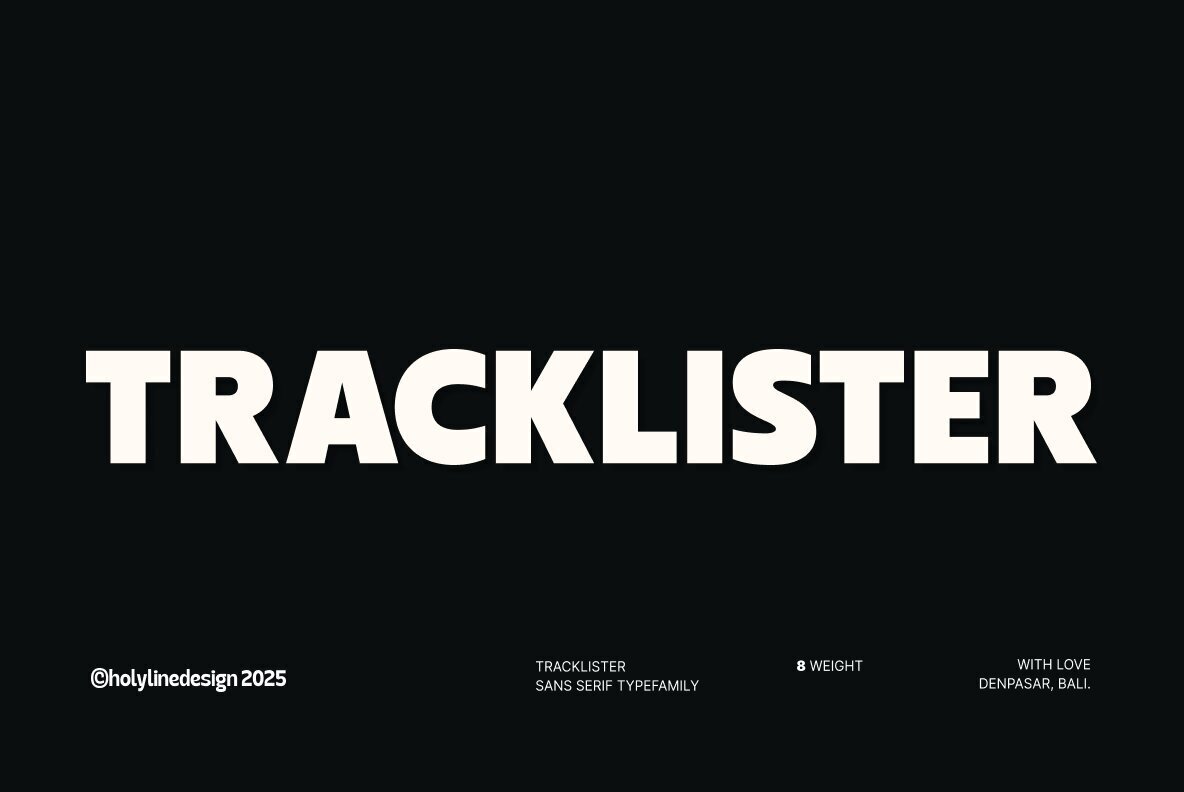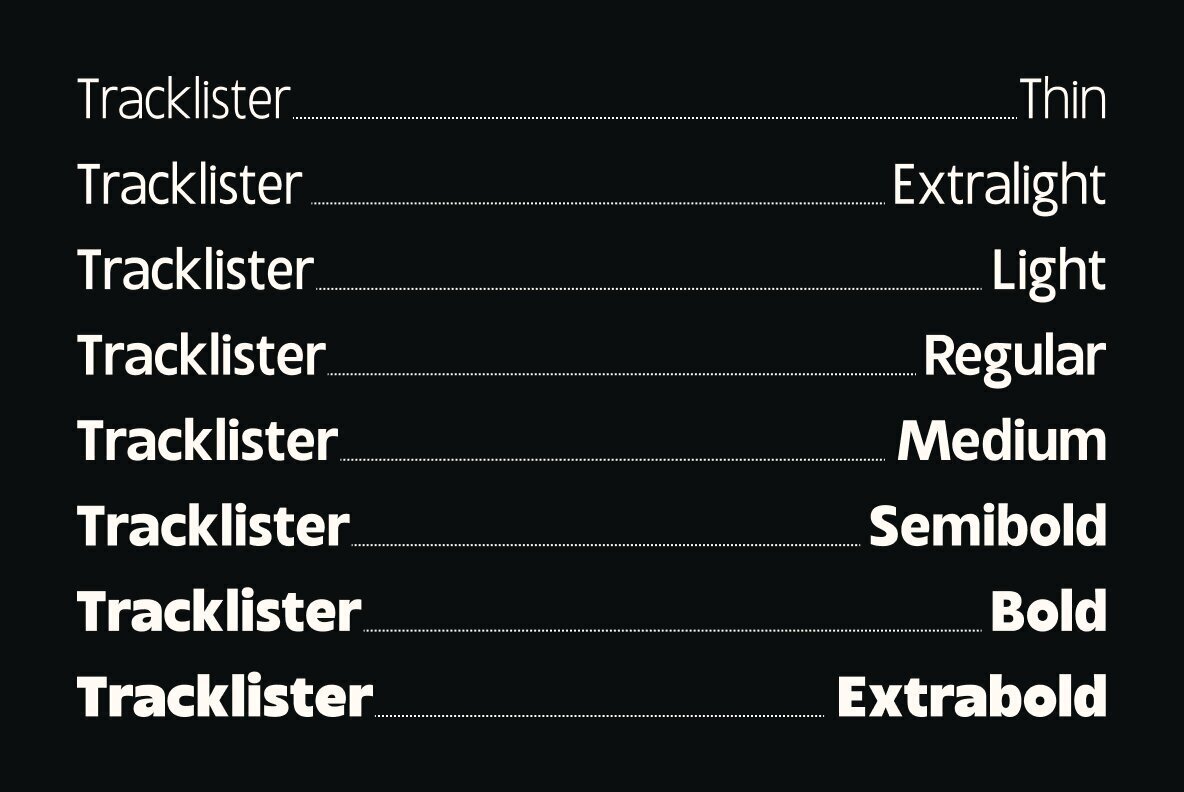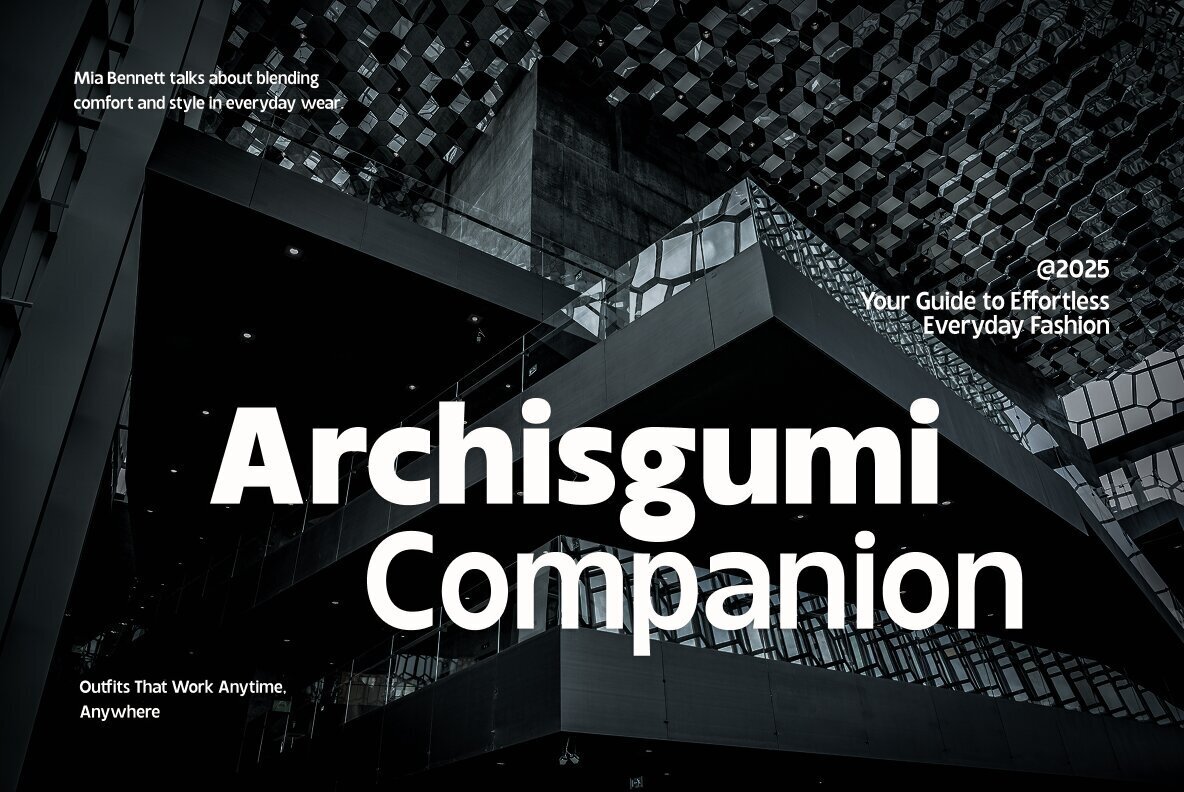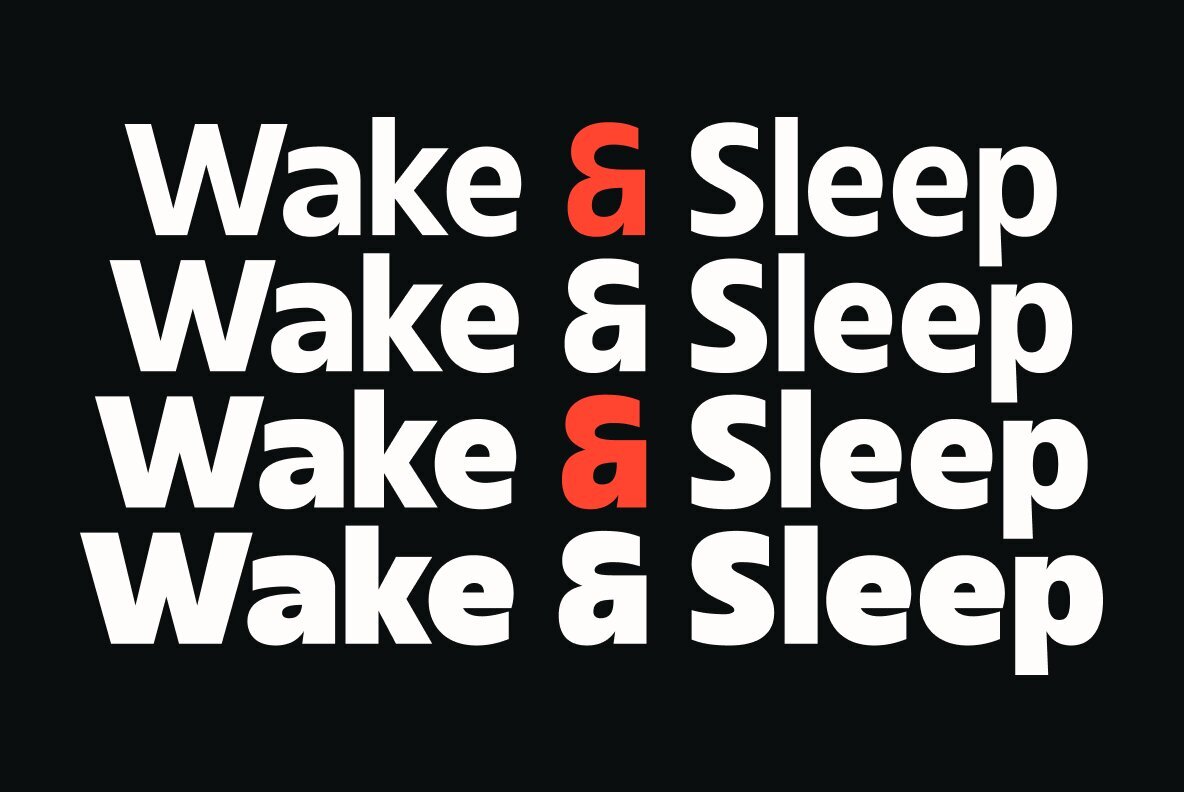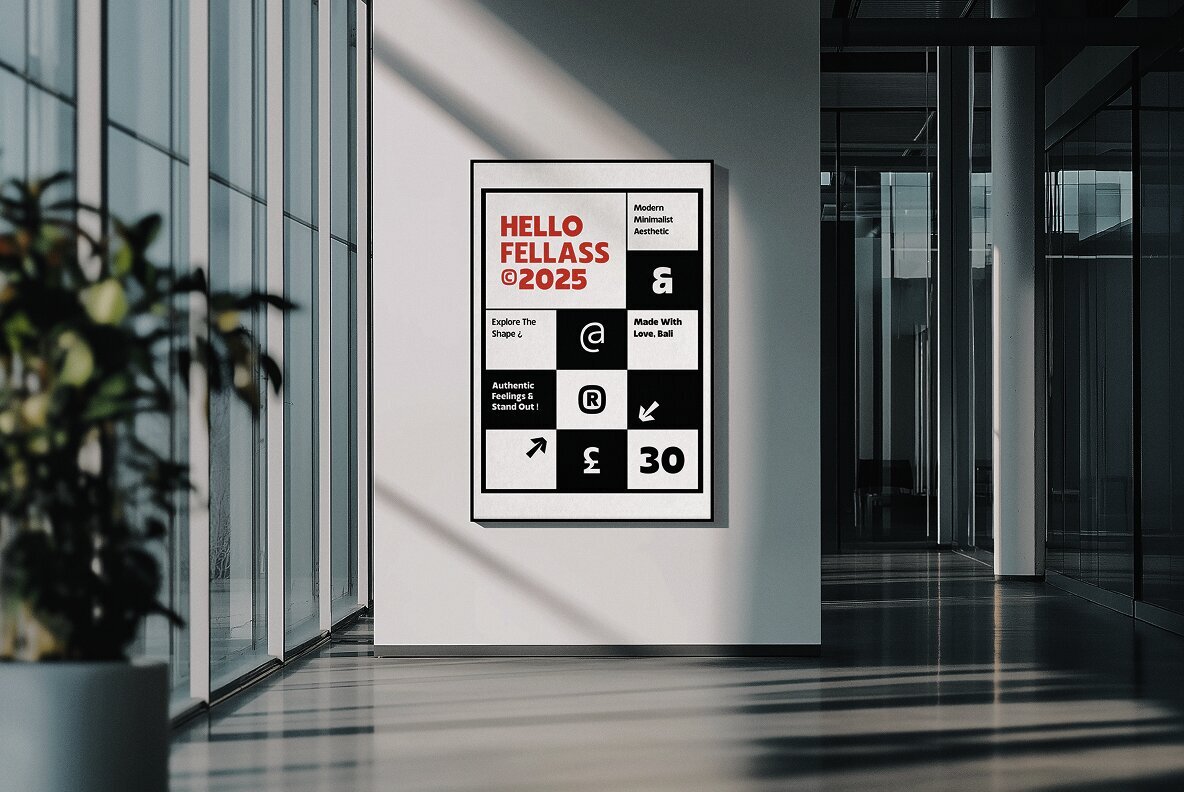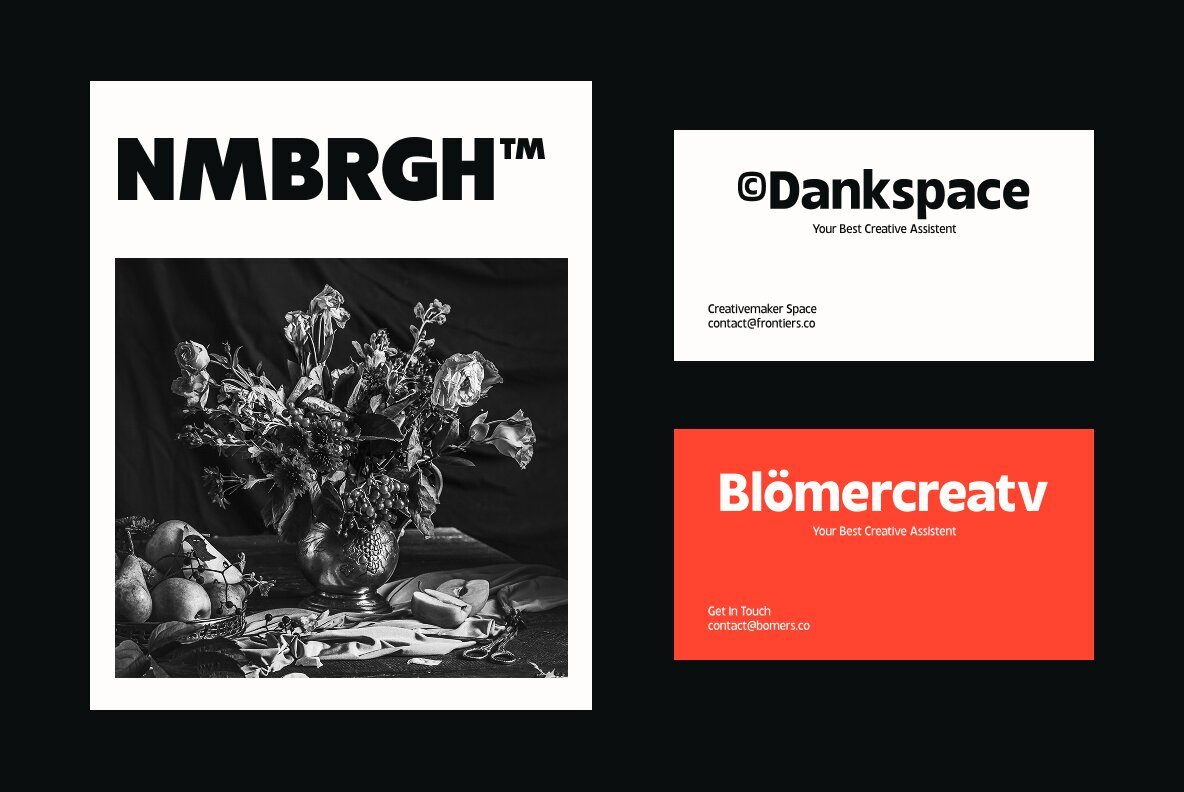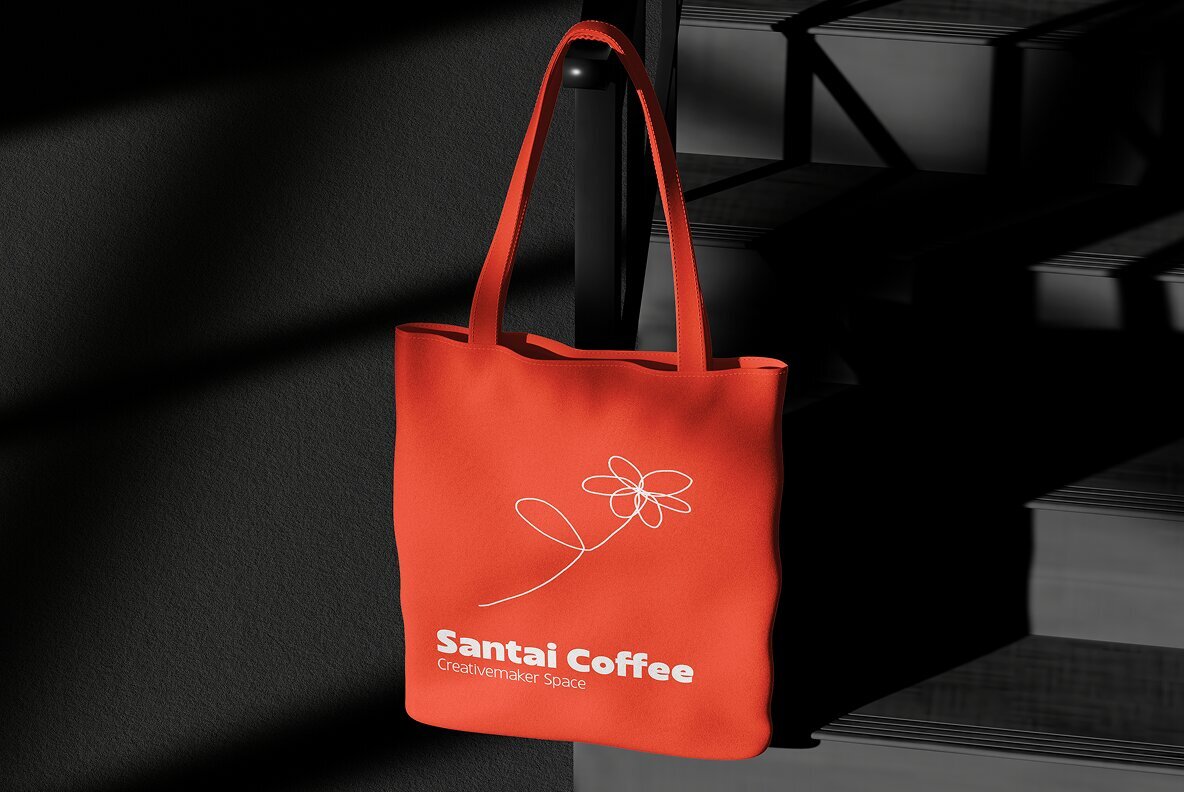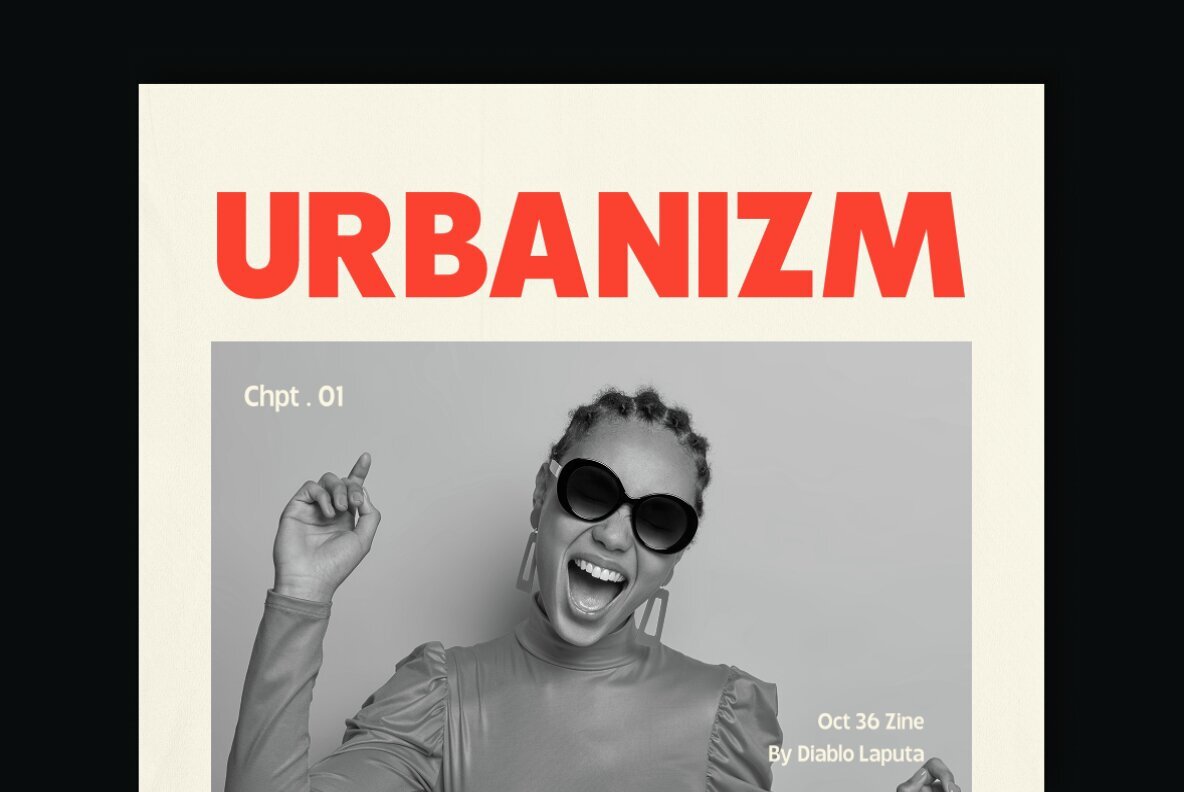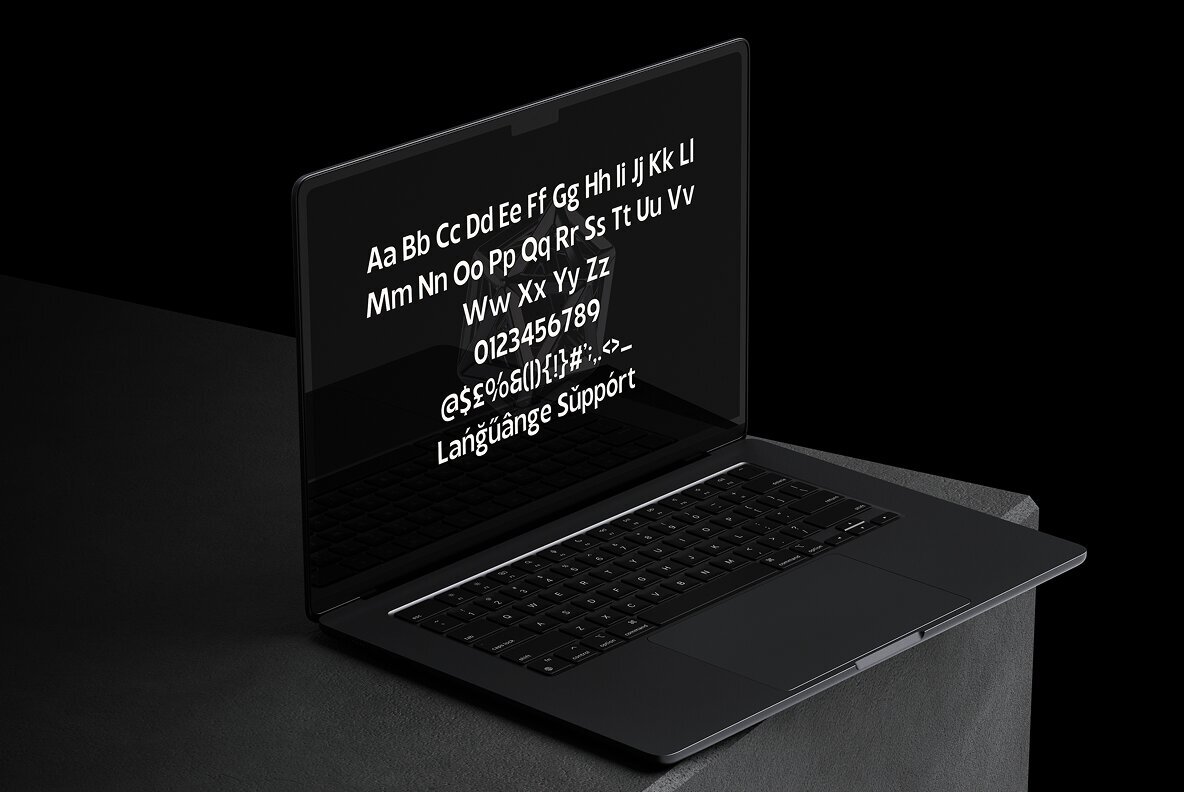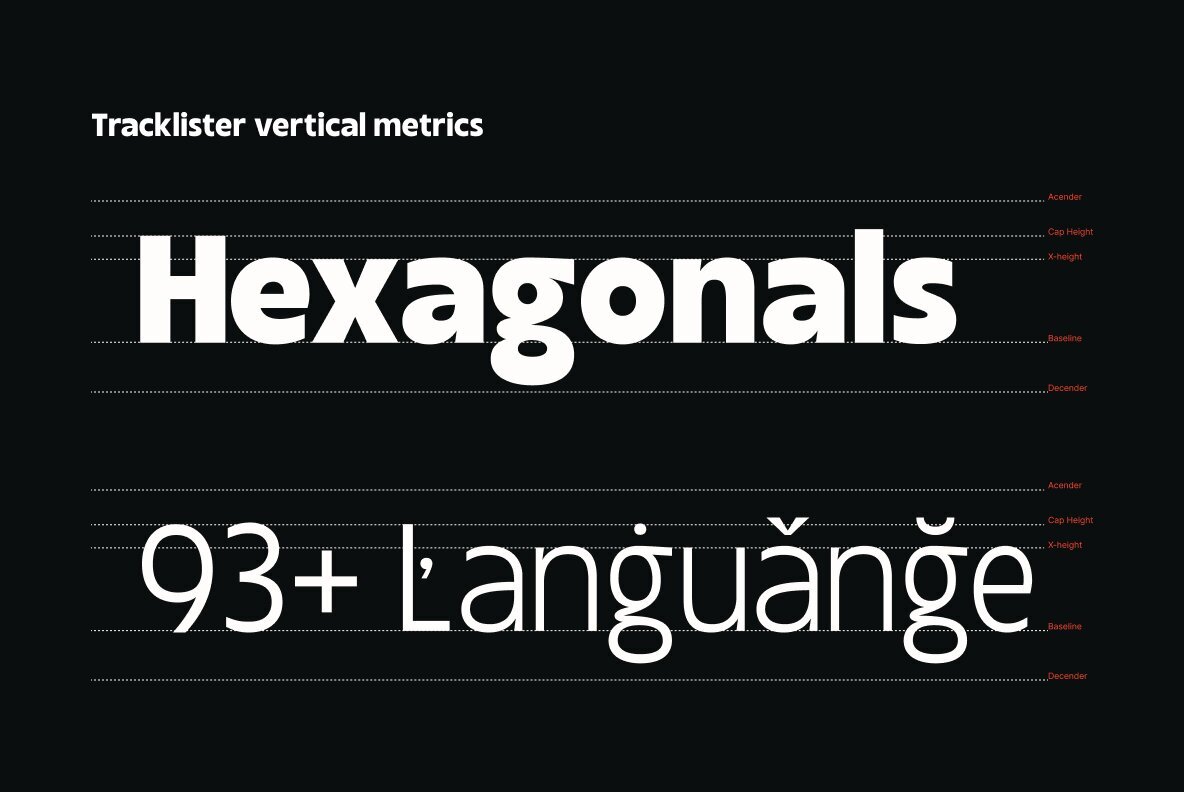
Tracklister Font
Tracklister is a bold and modern sans serif display font that fuses neo-modern aesthetics with geometric precision. Designed for impact, this font is ideal for headline typography, minimalist compositions, and explorative typographic designs. With 8 weights ranging from thin to bold, Tracklister ensures versatility while maintaining a strong presence in every character. Its clean yet dynamic structure makes it perfect for editorial layouts, branding, and contemporary digital projects. Tracklister is a go-to choice for designers looking for a typeface that balances futuristic elegance with powerful readability.